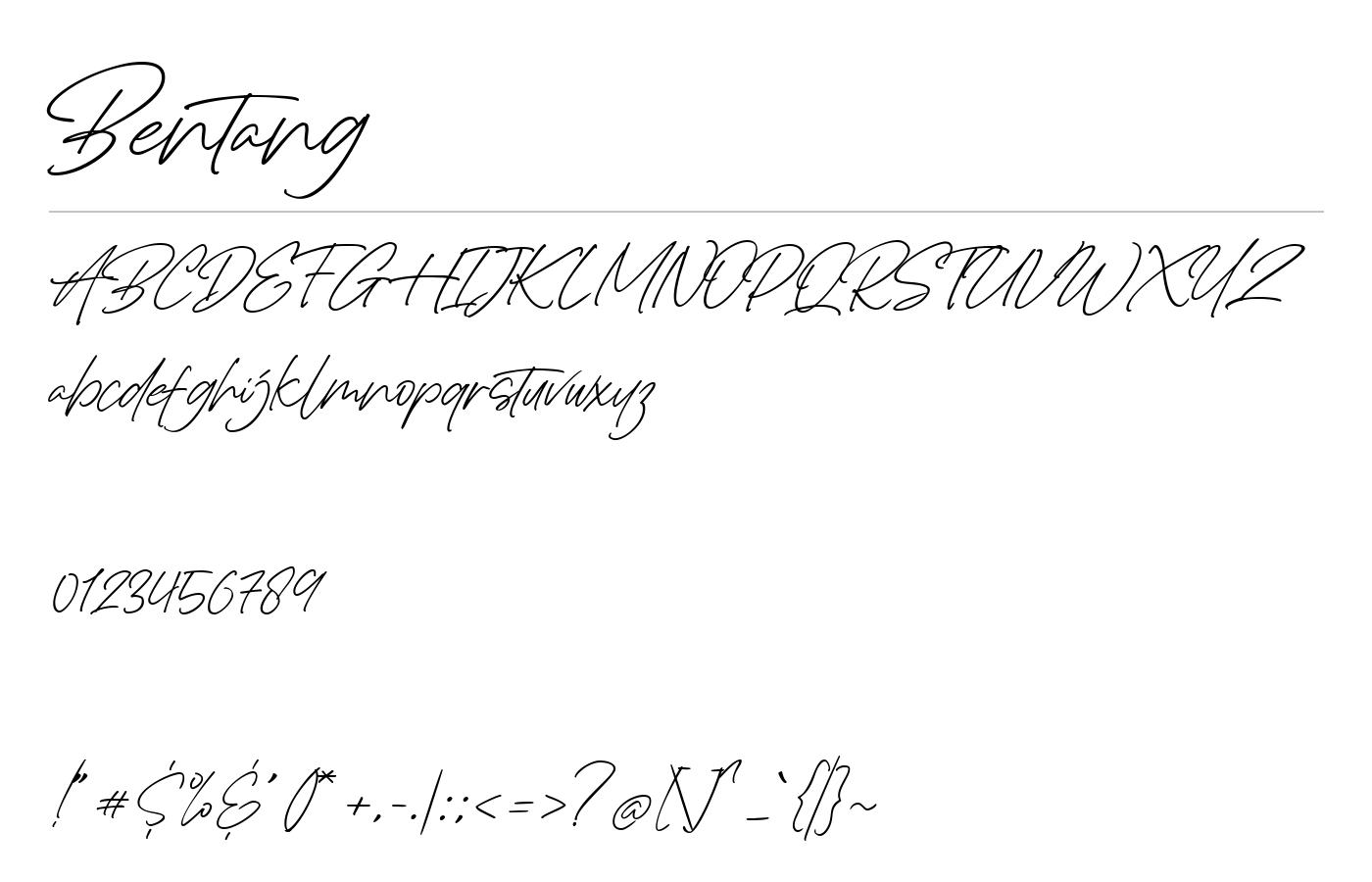
Bentang is an elegant, handwritten script font characterized by its light, flowing strokes and a casual, yet refined style. Its thin, slightly slanted letterforms with delicate curves create a personal and artistic feel, making it ideal for branding, invitations, and creative projects that seek a sophisticated but approachable touch. This font works best in headlines or logos where a stylish and expressive handwritten look is desired.
Bentang Font
About Bentang Font
| Font family | Bentang Font |
| Designer | Vunira Design |